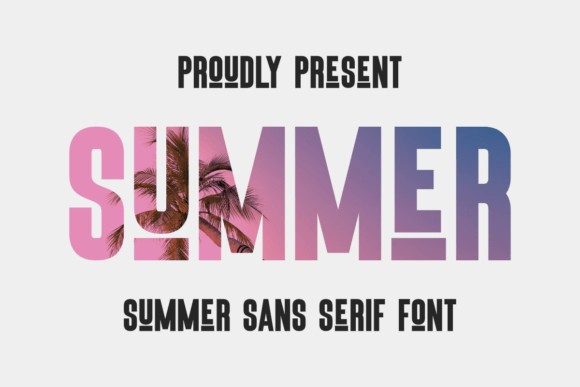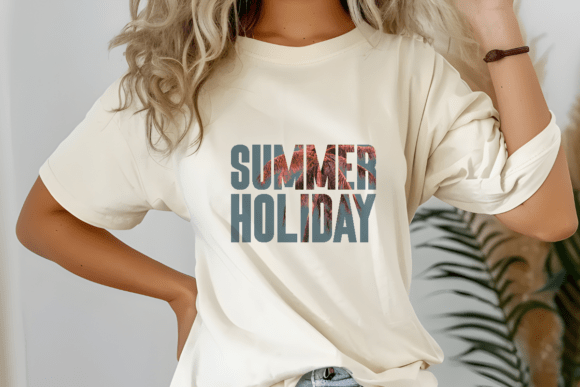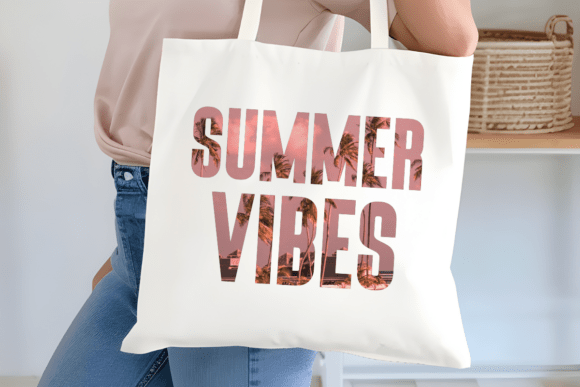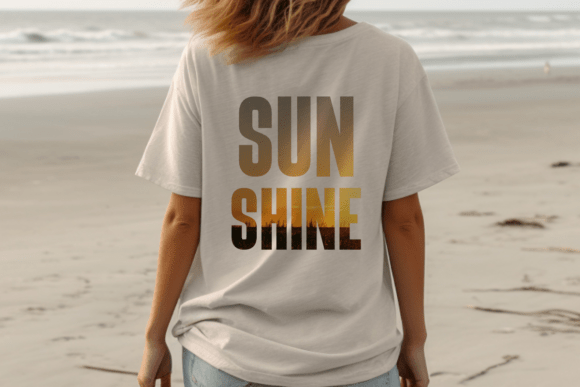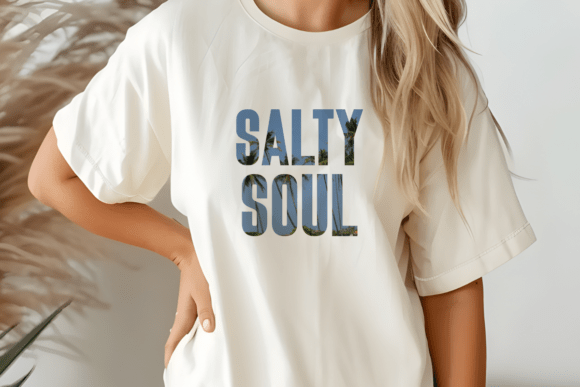
Summer Font
Summer is a bold sans serif font with a retro vintage style, perfect for bringing a classic yet powerful touch to your creative projects. With clean lines and a nostalgic feel, this font is ideal for crafting, sublimation, print on demand, t-shirt designs, mugs, tote bags, posters, headlines, and branding.